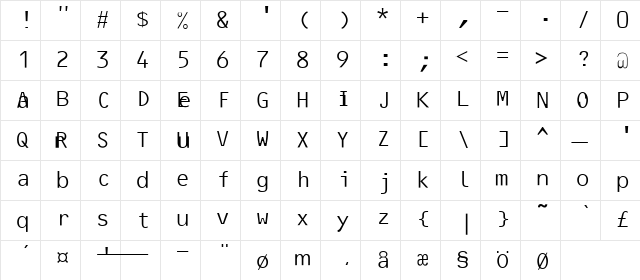
O Medium Font Preview
O Medium
O Medium Font Details
Design Context for O Typeface
O is a composed and adaptable typeface that performs quietly and consistently across a wide range of design contexts.